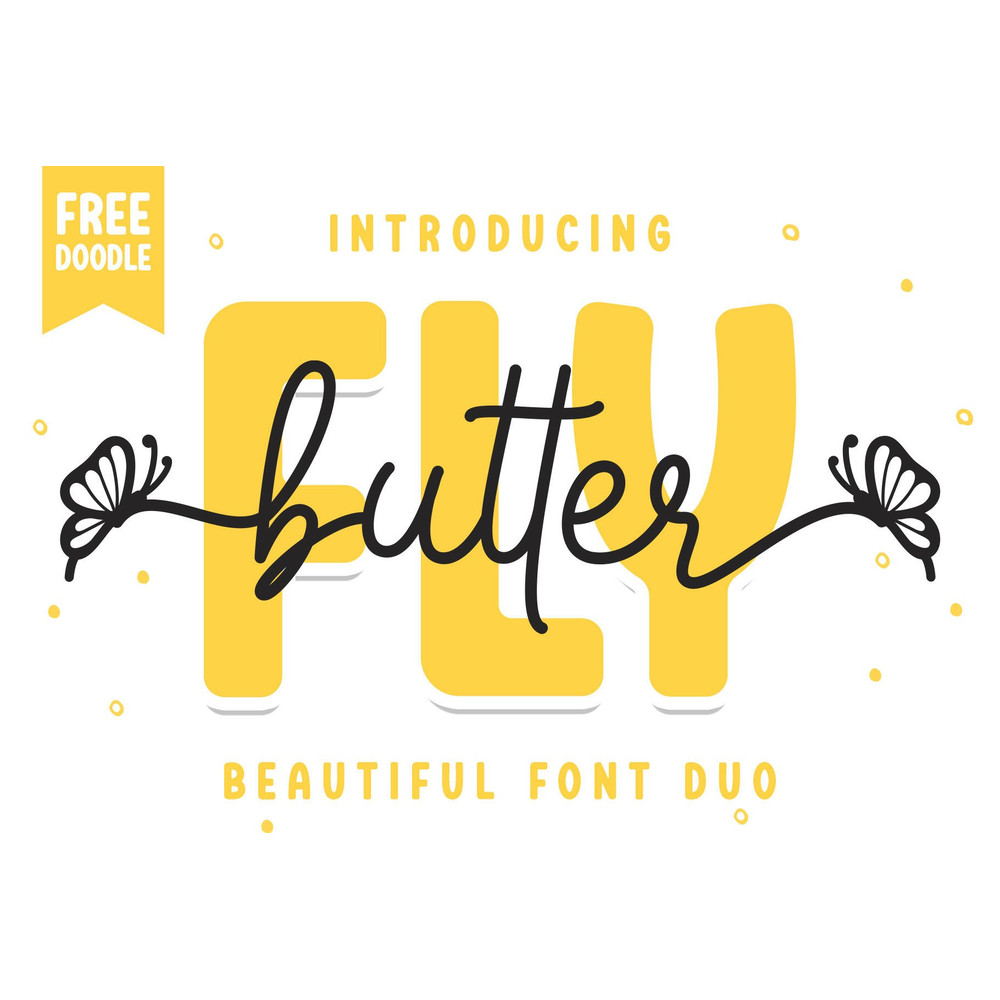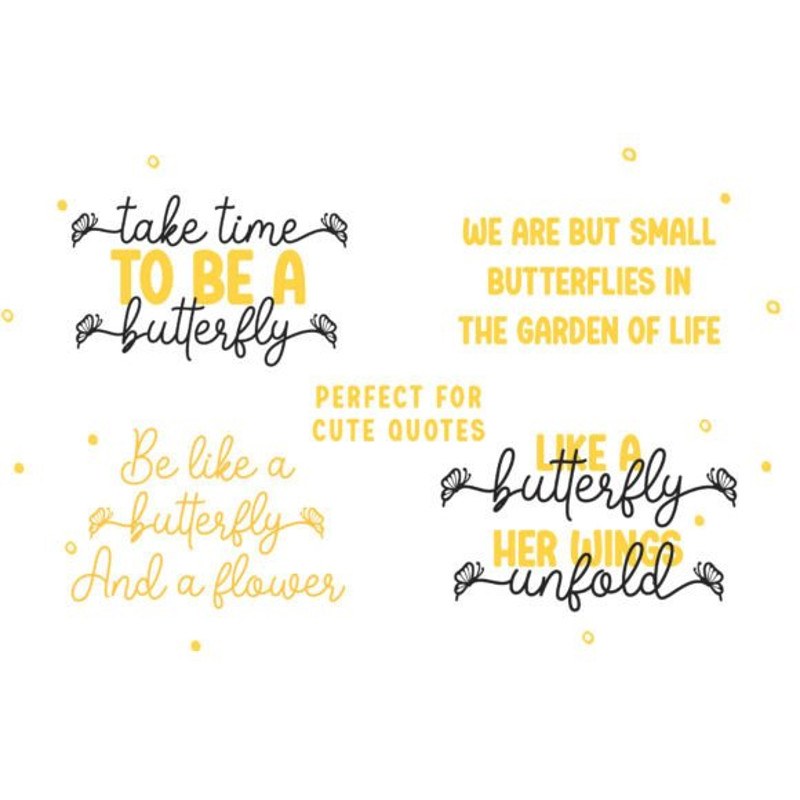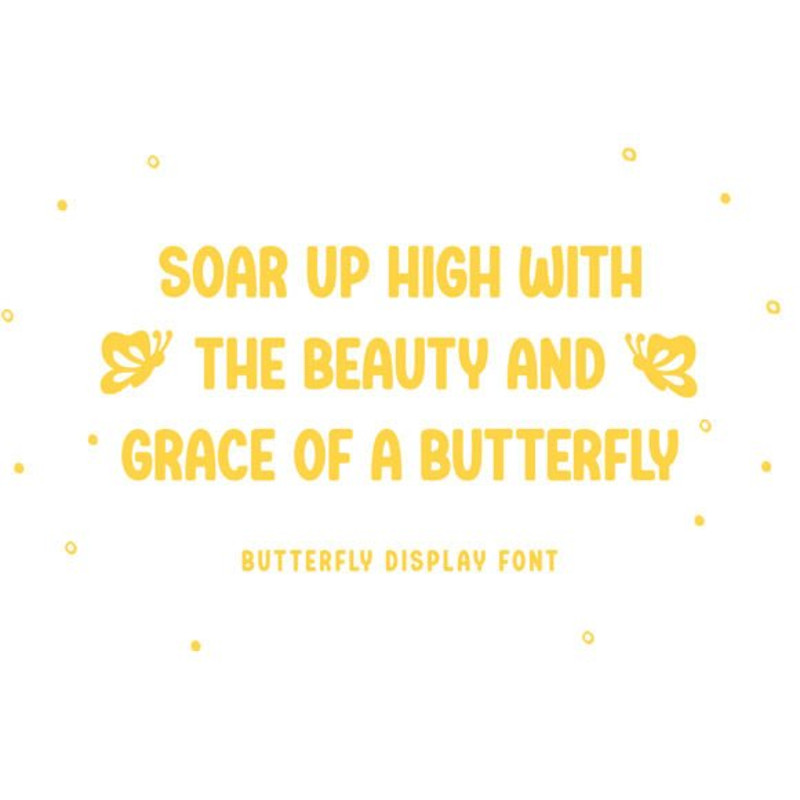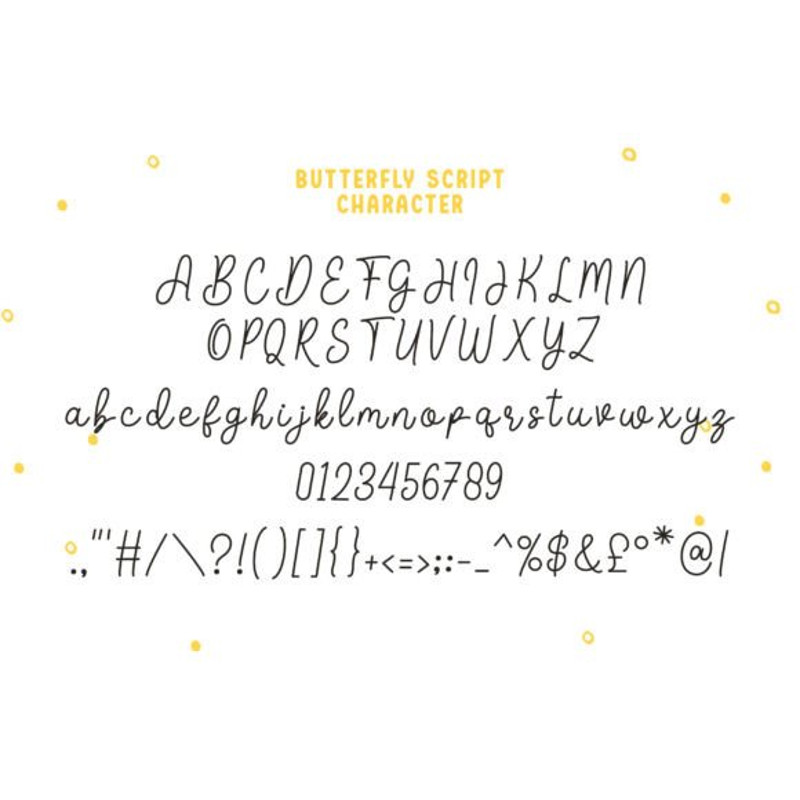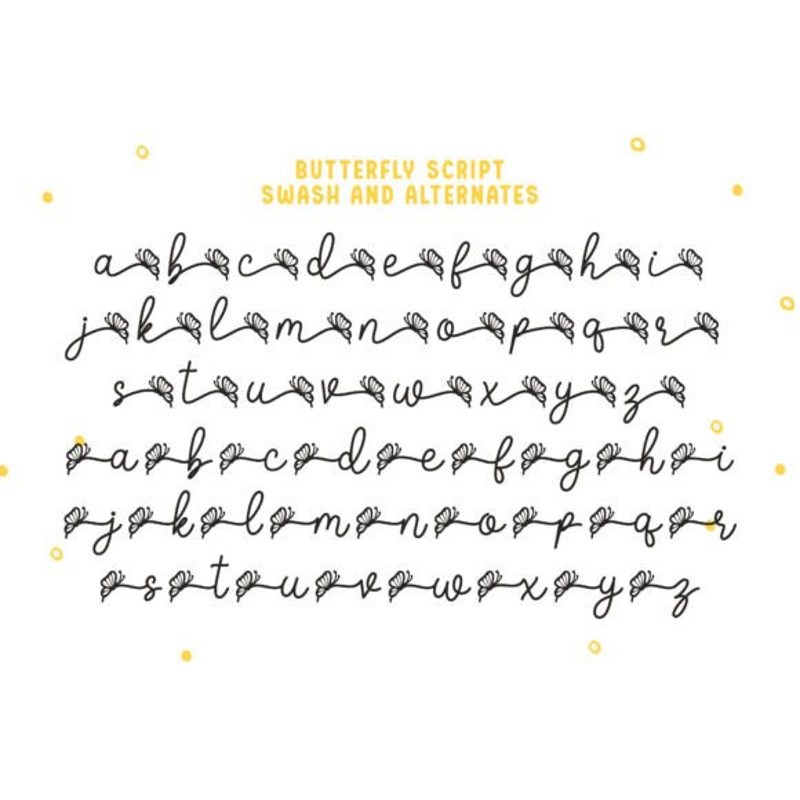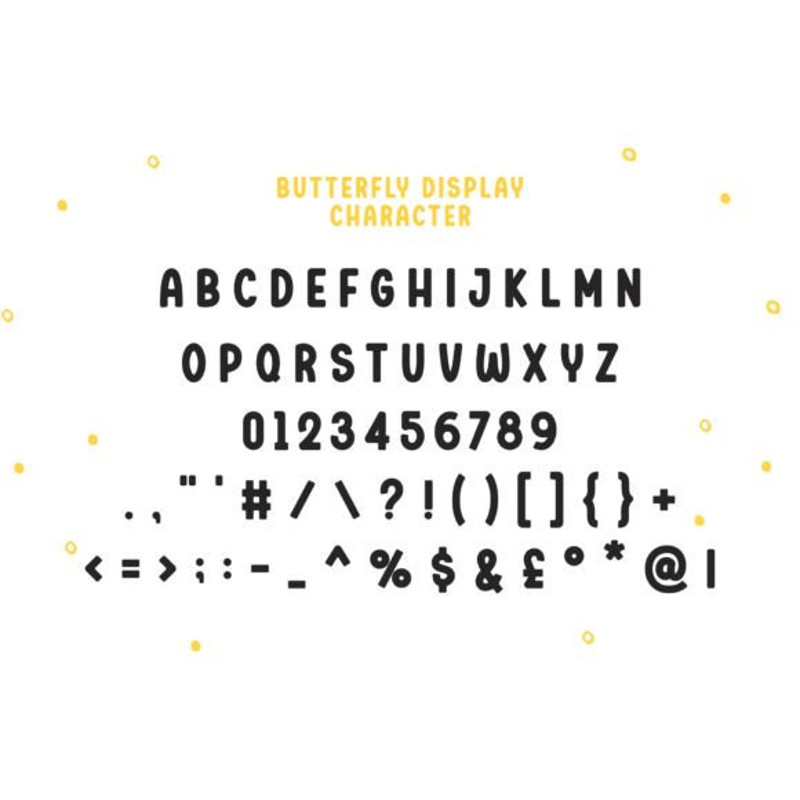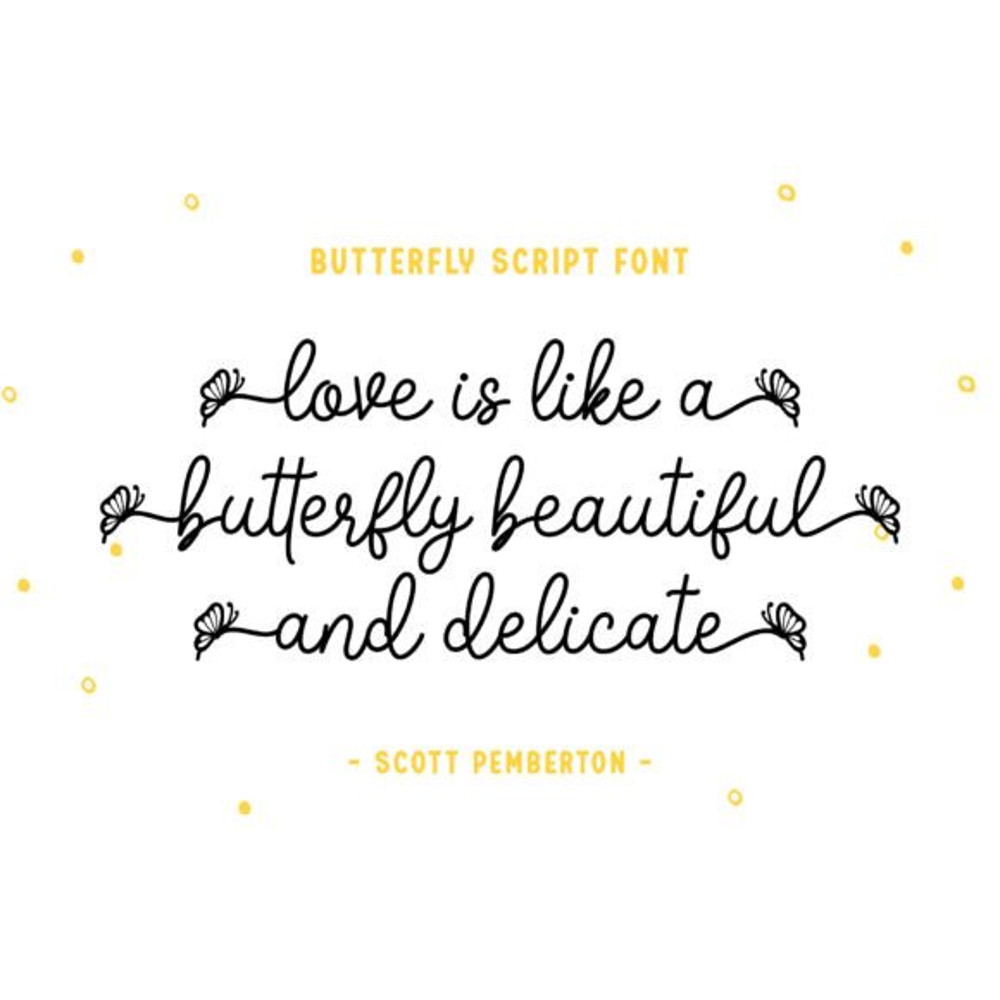
Butterfly Duo Font
Butterfly is a fun and playful font duo with two styles – script and display. This font is inspired by cute butterflies, which makes it suitable for adorable and kids’-related products. This font is PUA encoded which means you can access all of the glyphs and swashes with ease!
Butterfly Duo Font
Butterfly is a fun and playful font duo with two styles – script and display. This font is inspired by cute butterflies, which makes it suitable for adorable and kids’-related products. This font is PUA encoded which means you can access all of the glyphs and swashes with ease!